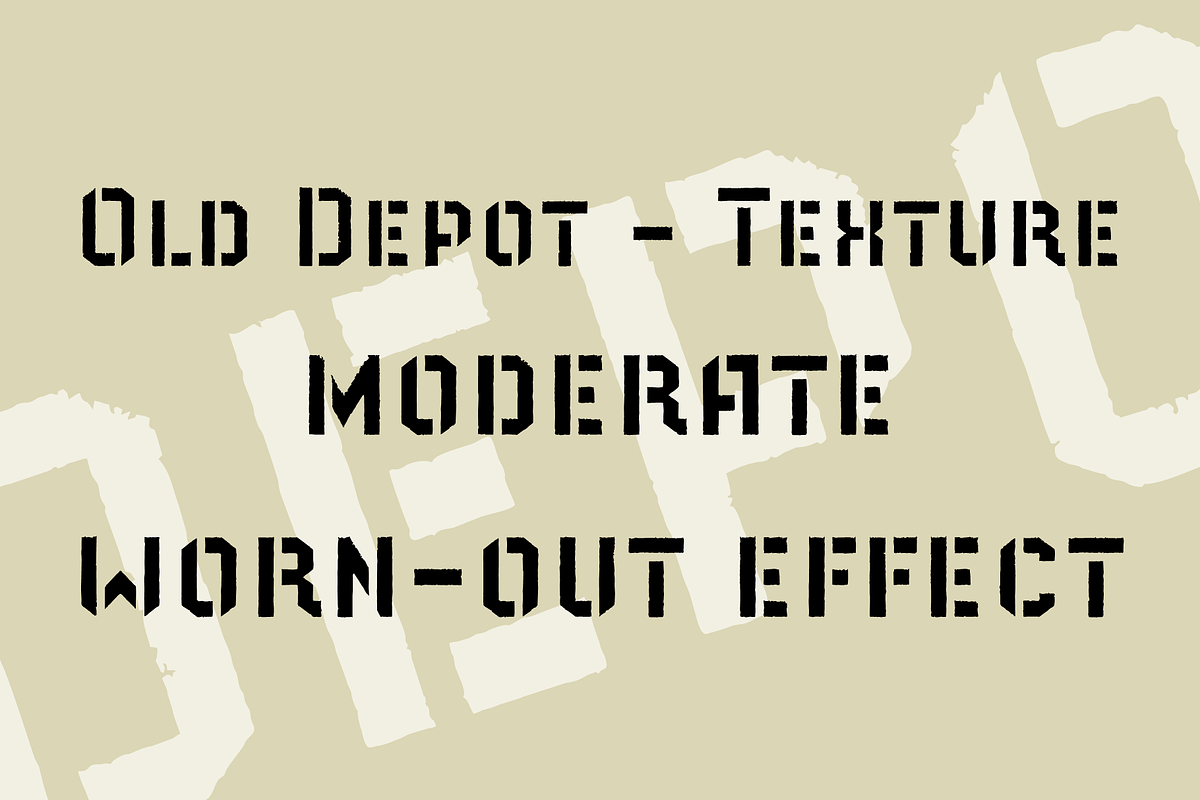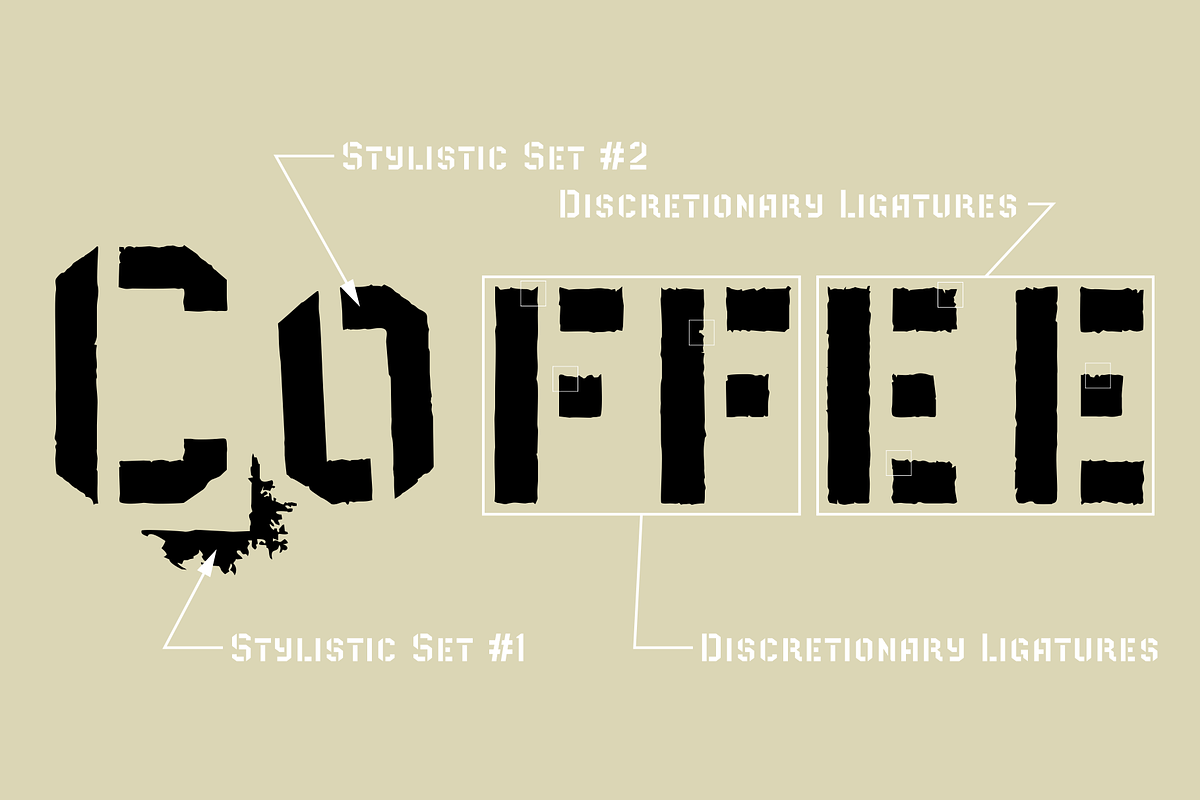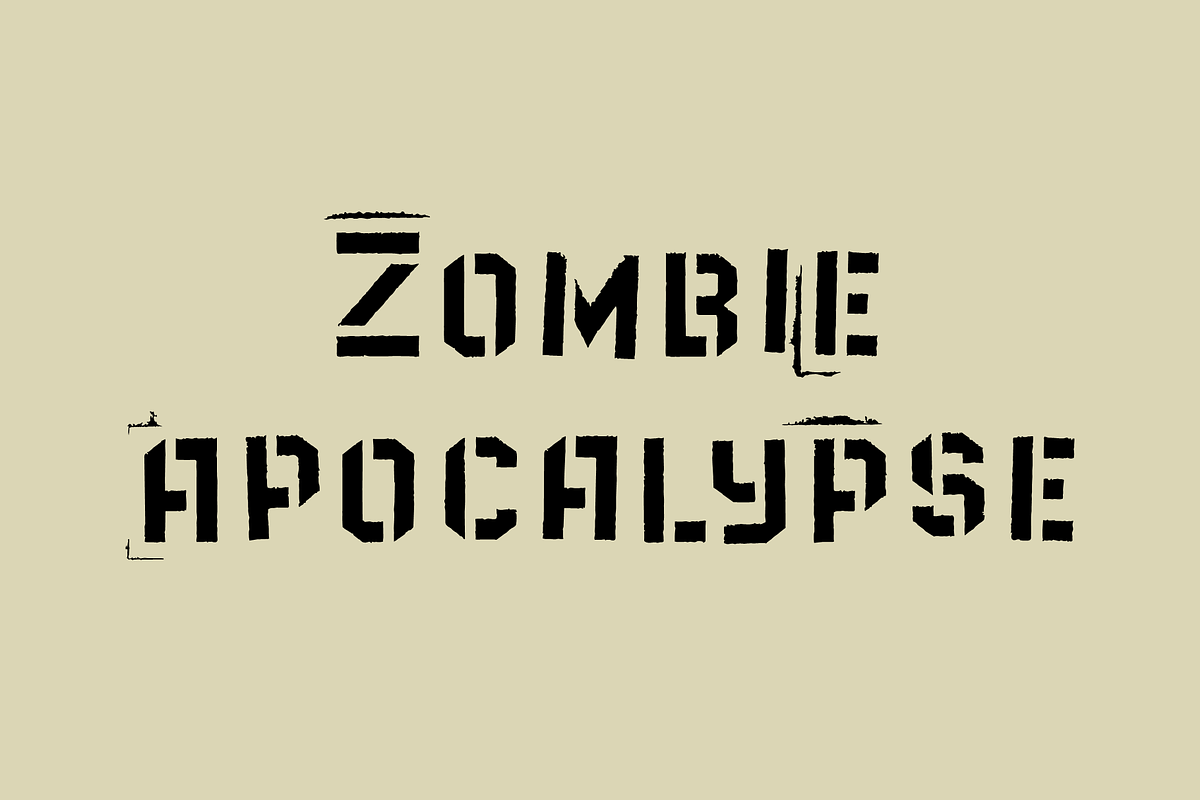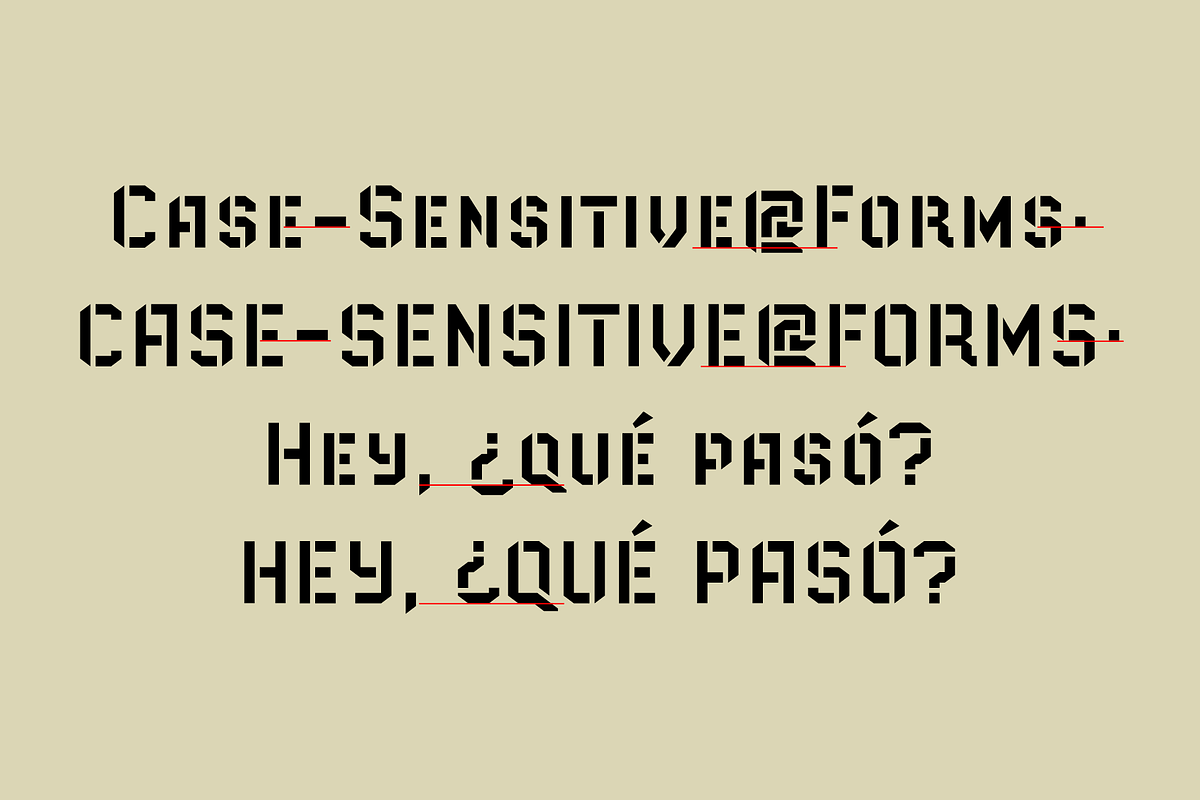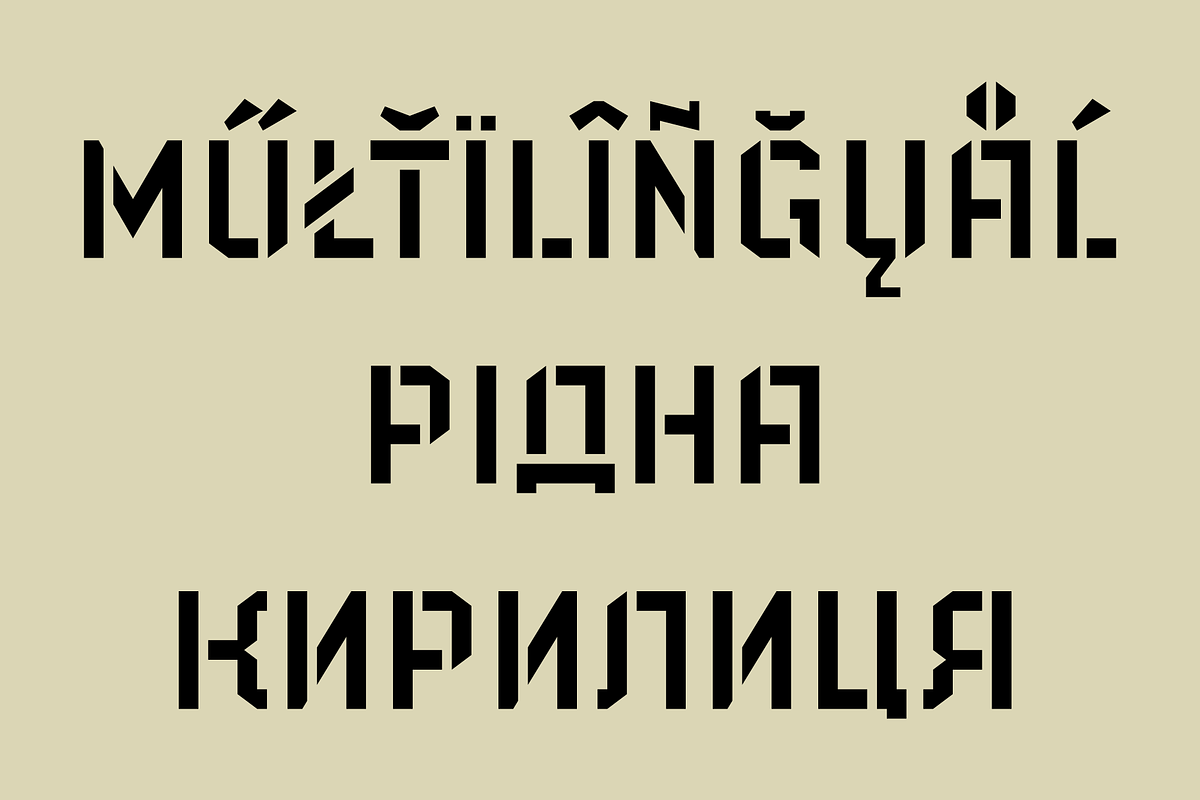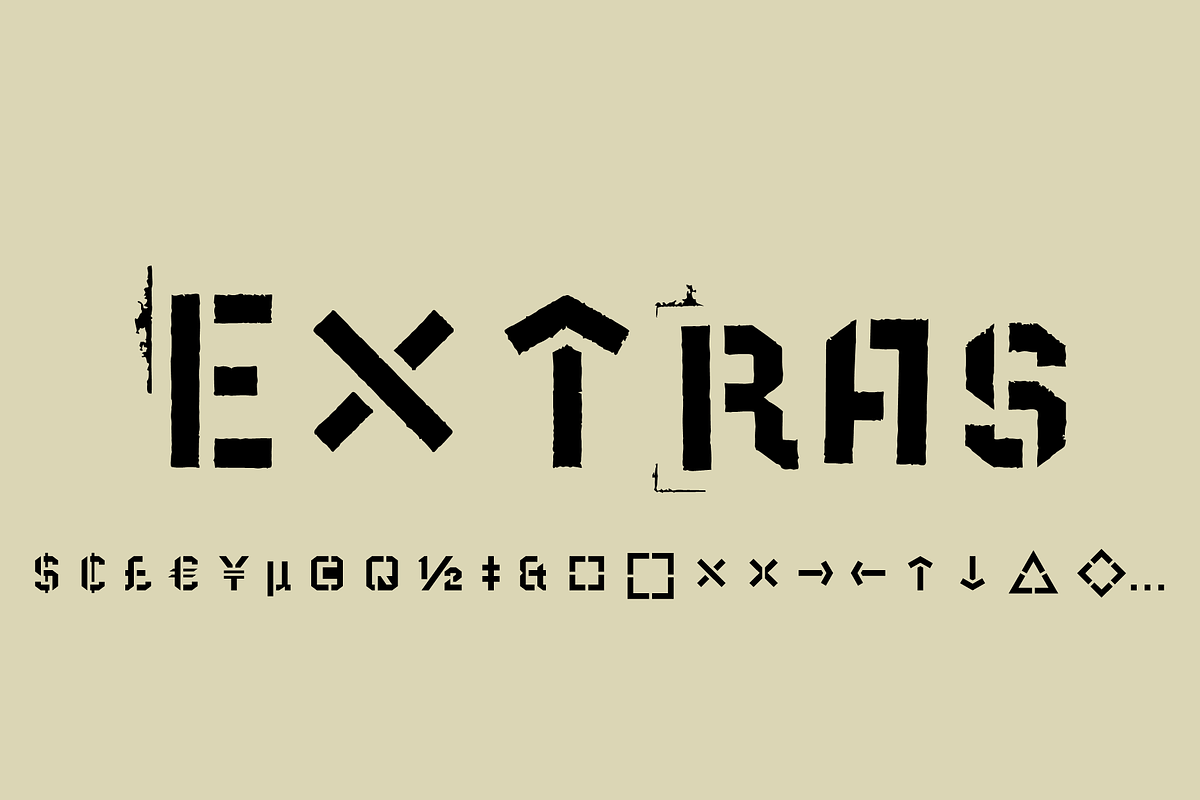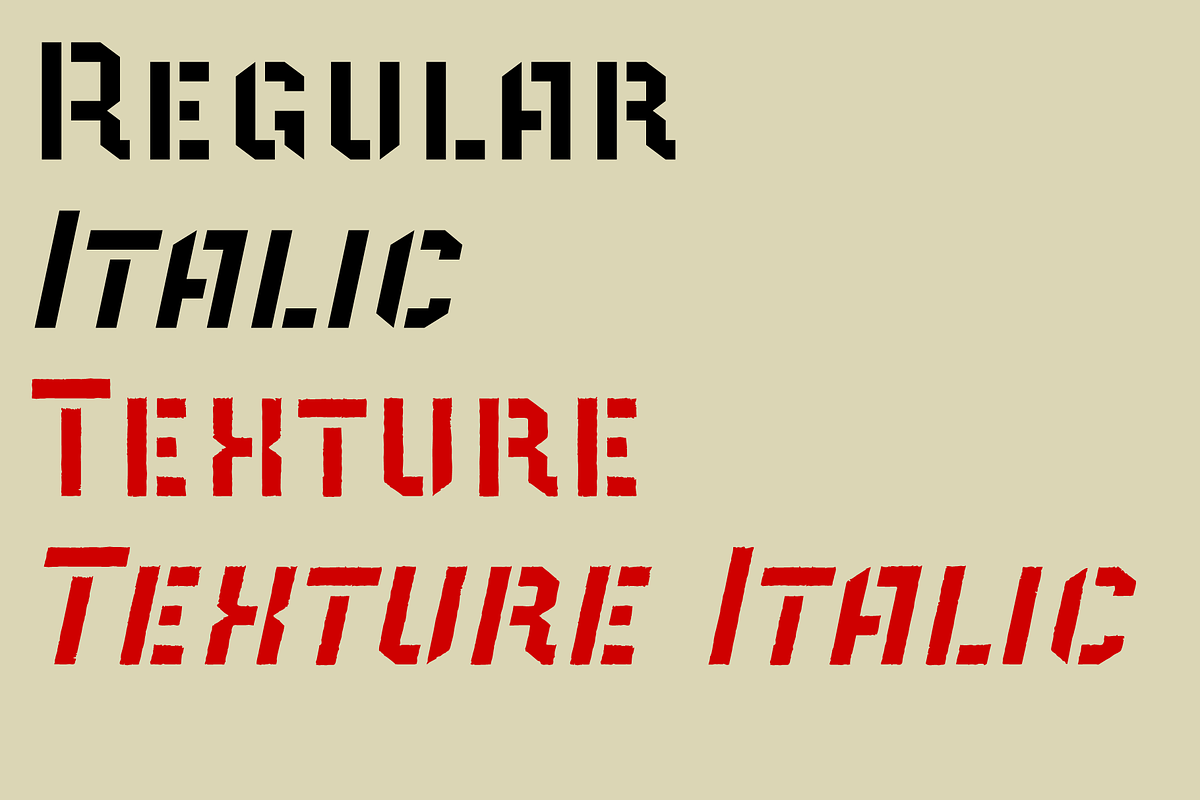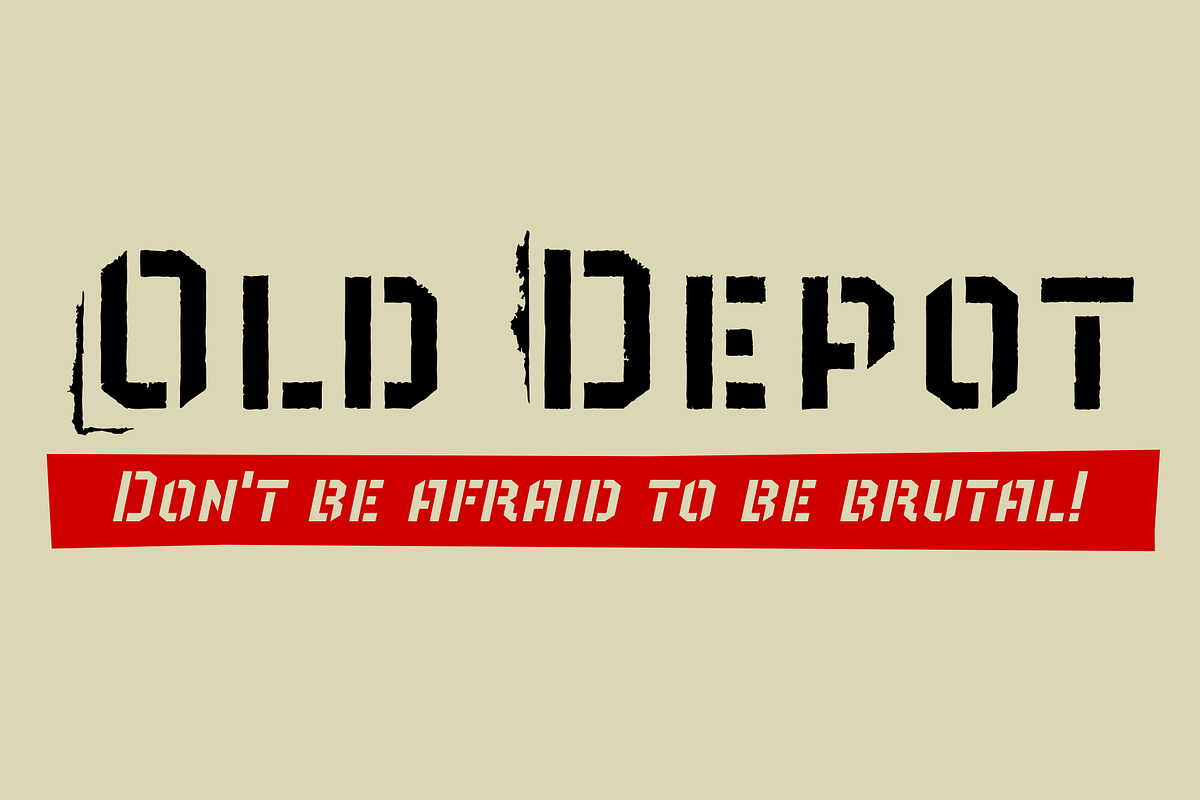
Old Depot
Old Depot is a newly reworked idea for the Depot Trapharet 2D font. It supports more languages and is available in more lettering. Old Depot stands out with its industrial nature of archaic spirit. It is a wonderful choice for solid uncompromising inscriptions or slogans. Don't be afraid to be brutal!